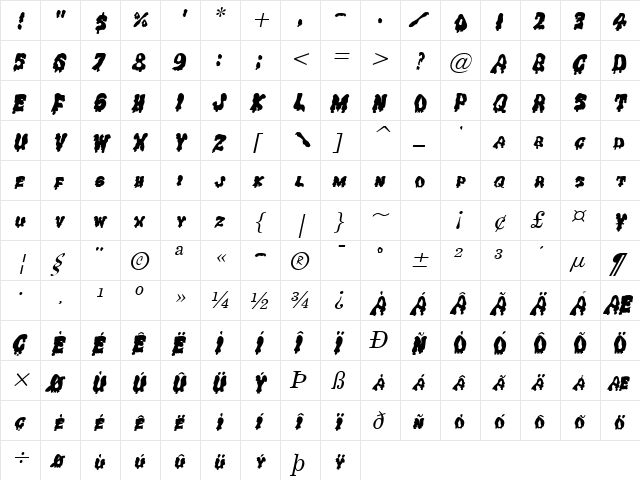
Gremlin Solid Italic Font Preview
Gremlin Solid Italic
Design Context for Gremlin Solid Typeface
Gremlin Solid is a composed and adaptable typeface that performs quietly and consistently across a wide range of design contexts. The dynamic lean of this cut emphasises speed and emphasis in any layout.
Pro Tip: Use Gremlin Solid for emphasis, pull quotes, and subheadings where its slanted energy can add rhythm to the layout.